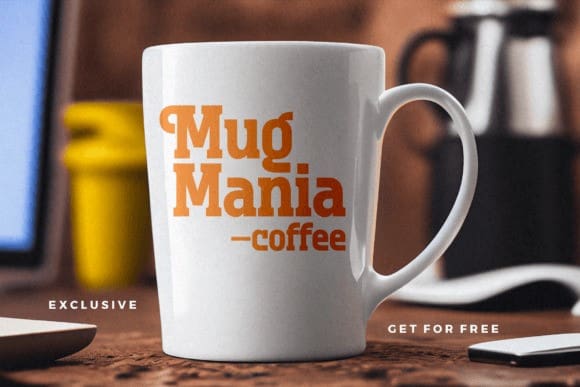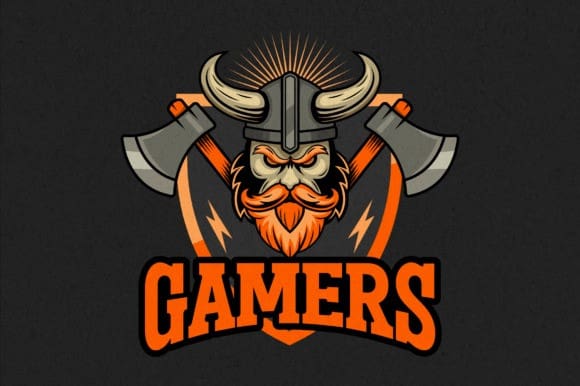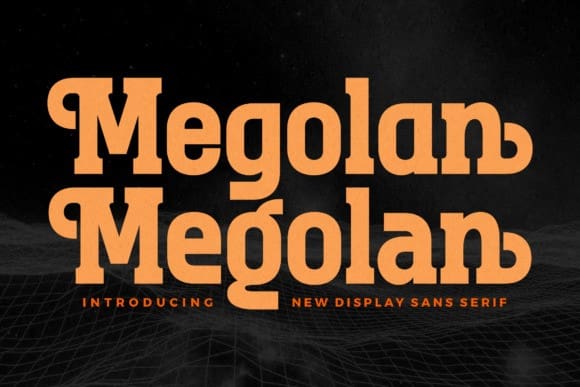
Megolan Font
Megolan Font is an elegant and modern serif font. This minimalist and clean vibe can easily apply to your favorite designs such as book covers, magazines, social media posts, invitations, and so much more!